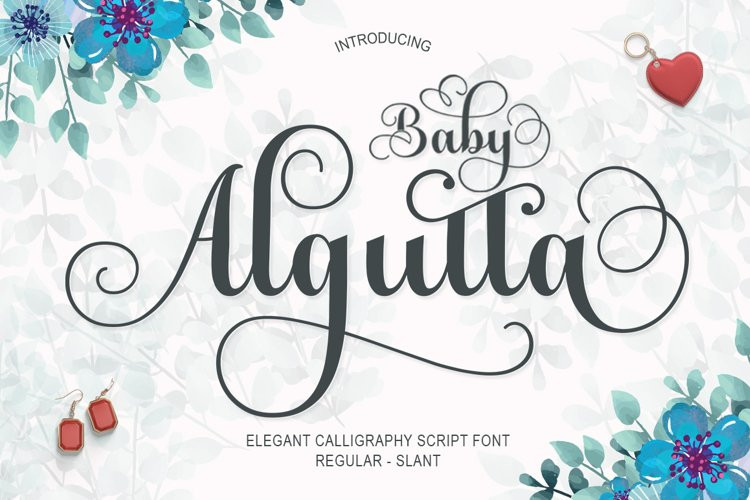
Baby Algutta Font
Baby Algutta is a modern, handwritten and modern calligraphy font. The shape is modern and unique and the writing style is very natural.
The Baby Algutta features a varied baseline, smooth lines, beautiful glyphs, and amazing alternatives.
Hand-drawn design elements allow you to create many beautiful typographic designs in an instant such as branding, web and editorial design, prints, crafts, quotes,
It’s great for logos, wedding invitations, romantic cards, labels, packaging, name spelling, and more.